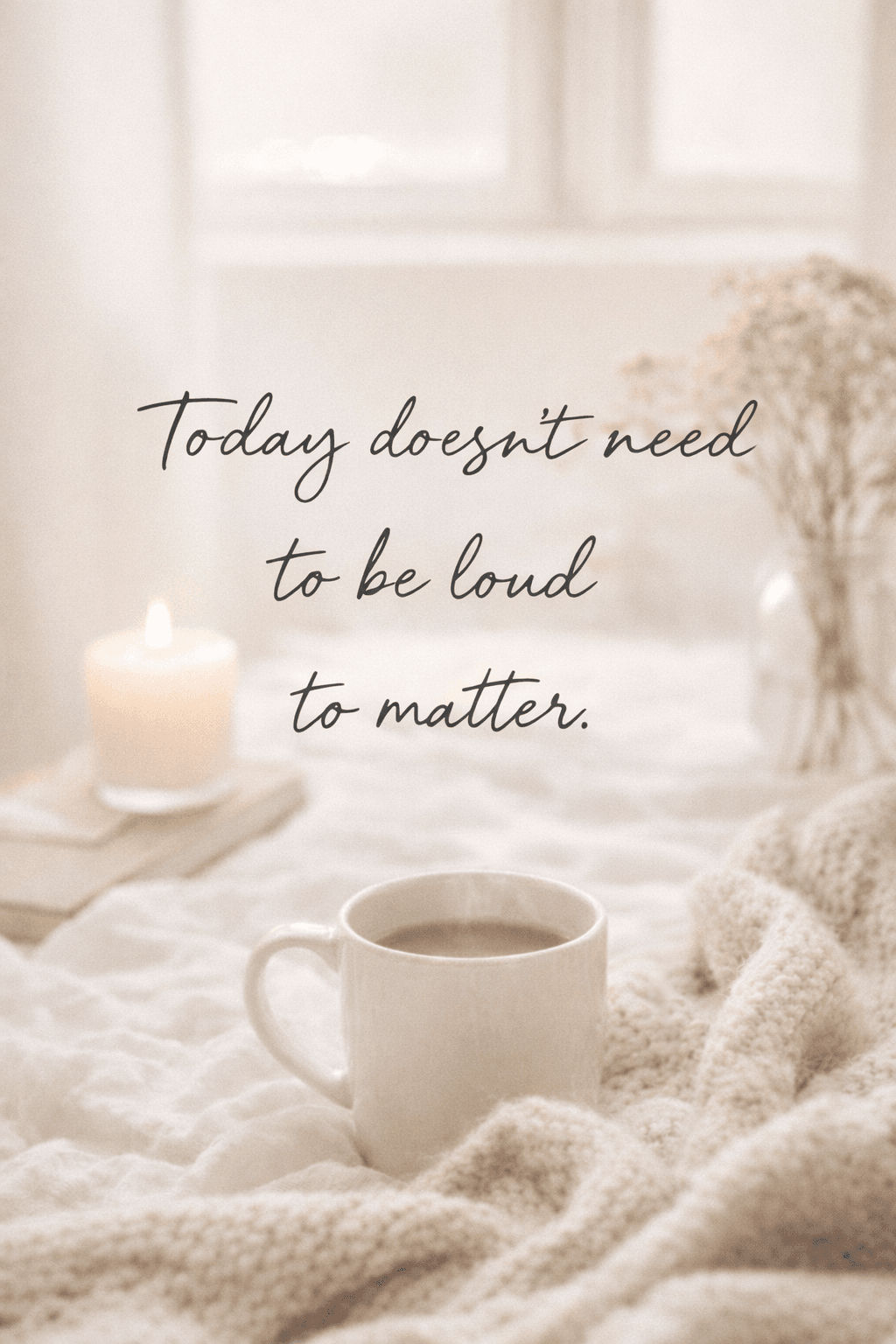
Top Aesthetic Quotes for Cozy Seasons and New Starts
If you’re collecting aesthetic quotes for Pinterest pins, Notion headers, or calm quote graphics, cozy seasons are the perfect theme. They’re soft, reflective, and full of tiny rituals, warm drinks, quiet mornings, resets, and gentle goals. This post gives you aesthetic quotes that feel clean and modern, not overly dramatic, and easy to use for captions, journaling, and minimalist typography designs.
You’ll also get font pairing ideas at the end so your quote graphics look consistent and premium.
Aesthetic Quotes for Cozy Mornings and Slow Routines
1. Soft mornings make room for better thoughts.
2. Start slow. Stay kind.
3. Warm light, calm mind, fresh page.
4. Quiet routines build strong days.
5. A cozy start can change the whole week.
6. Let your morning be gentle on purpose.
7. Peace is a habit you practice daily.
8. Simple rituals are still progress.
9. Today doesn’t need to be loud to matter.
10. Slow is a style, not a delay.
Example Aesthetic Quotes for Morning Pinterest Posts.
These aesthetic quotes work well for Notion daily pages and morning Pinterest posts.
Aesthetic Quotes for New Starts and Clean Resets
1. A new start can be one small decision.
2. Begin again, but with better boundaries.
3. Reset quietly. Return stronger.
4. You don’t need permission to change.
5. Fresh starts don’t have to be dramatic.
6. You can start over without starting from zero.
7. Choose the next step, not the whole staircase.
8. New habits love simple plans.
9. Let this be the season you keep going.
10. Your future can be calm and bright.
Use these aesthetic quotes for “new month” and “new chapter” content.
Aesthetic Quotes for Cozy Seasons and Comfort Vibes
1. Cozy is a feeling you can create.
2. Warm drinks and softer expectations.
3. Let the season slow you down in the best way.
4. A quiet room can be a reset button.
5. Small joys count as real joy.
6. Comfort is a kind of success.
7. Keep it soft. Keep it steady.
8. This season is for simple wins.
9. Calm days are still meaningful days.
10. Cozy moments are a form of self-respect.
Example Aesthetic Quotes for Fall/Winter Moodboard.
These aesthetic quotes are perfect for fall/winter moodboard pins.
Aesthetic Quotes for Journaling and Gentle Reflection
1. Write it down. Breathe it out.
2. Your thoughts deserve a safe place.
3. A quiet mind starts with an honest page.
4. Reflect, release, restart.
5. Be proud of how you’re learning.
6. Healing looks like small changes repeated.
7. You can miss the past and still move forward.
8. Keep what’s good. Let the rest go.
9. Some growth is invisible, but real.
10. The page is patient. Start there.
If you build Notion dashboards, these aesthetic quotes make great headers and callouts.
Aesthetic Quotes for Cozy Confidence and Soft Motivation
1. Gentle progress is still progress.
2. Quiet confidence looks good on you.
3. You don’t have to rush to be ready.
4. Keep going, but keep it light.
5. Consistency is calmer than perfection.
6. Choose ease where you can.
7. Your pace is allowed.
8. Strong doesn’t always look loud.
9. Peace is powerful branding for your life.
10. Let your next chapter feel like relief.
These aesthetic quotes fit minimalist typography posts and calm “soft life” reels.
Font Pairing Suggestions for Aesthetic Quotes (Pinterest + Notion)
If you’re turning aesthetic quotes into graphics, your font pairing matters as much as the words. The goal is clean readability with a soft accent.
1. Modern minimal + soft signature (Pinterest-friendly)
Novaline
Beauty Signature - Handwritten Font
Best for: beige minimal pins, calm “new start” quotes.
2. Clean monoline + warm handwriting (human, not cheesy)
• Main quote: Tinklin (monoline, readable with personality)
• Highlight words: Daily Hand (warm handwriting accent)
Best for: cozy journaling quotes and Notion callouts.
3. Premium signature + calm modern base (quiet luxury vibe)
• Main quote: Linova (thin modern handwriting look, clean)
• Highlight words: Kindscript (signature highlight only)
Best for: premium calm quote cards and soft-life posts.
4. Vintage calm pairing (retro cozy seasons)
• Main quote: Playwrite (vintage handwriting feel)
• Headline / short quote: Plumby (vintage display)